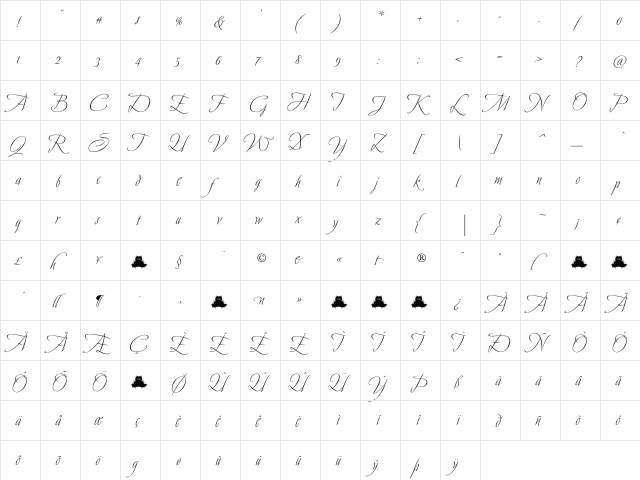
Avalon Regular
Design Context for Avalon Typeface
Avalon is a composed and adaptable typeface that performs quietly and consistently across a wide range of design contexts.